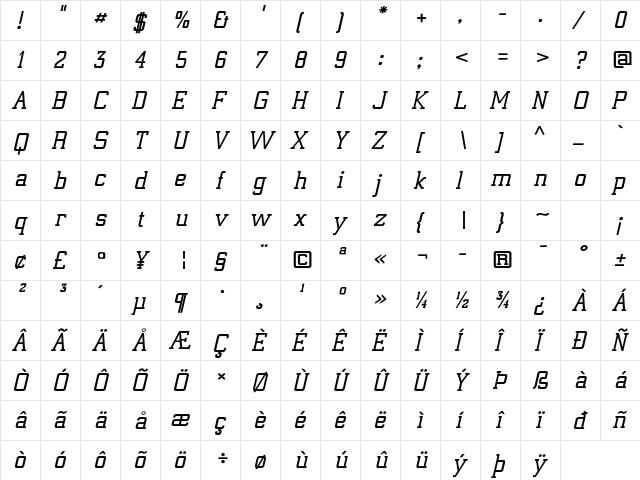
Electrum ADF Exp Lt Bold Italic
| Foundry | Arkandis Digital Foundry. |
| Designer | Hirwen HARENDAL |
Design Context for Electrum ADF Exp Lt Typeface
Electrum ADF Exp Lt is a composed and adaptable typeface that performs quietly and consistently across a wide range of design contexts. Its italic angle brings a sense of urgency and motion to the letterforms. Its bold stroke weight gives it real presence on the page.
Pro Tip: Use Electrum ADF Exp Lt for emphasis, pull quotes, and subheadings where its slanted energy can add rhythm to the layout.